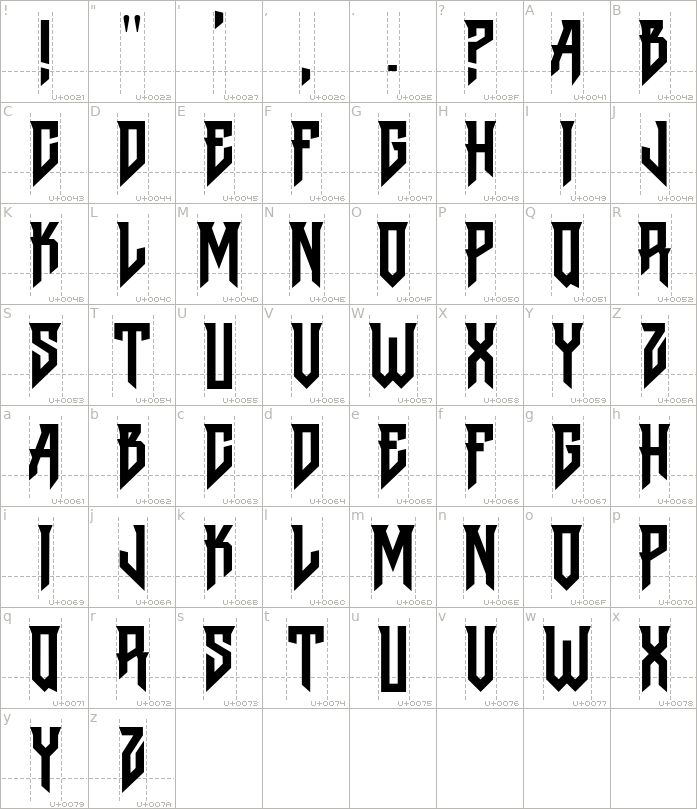
Lowercase: Same as uppercase
Numbers: No
Symbols and Punctuation: Very limited, view character map below.
Theme: Rock n Roll, metal. death metal. sci-fi